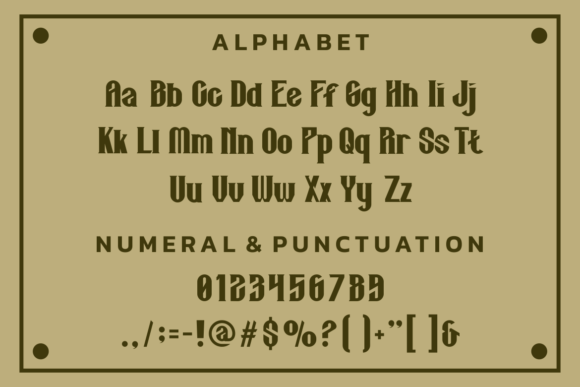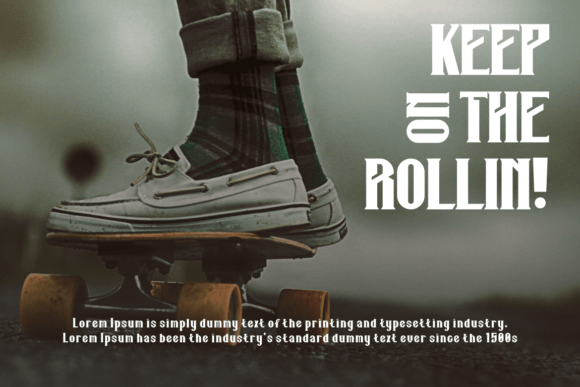
Introducing Deanic Rush Font: Elevate Your Designs with a Touch of Vintage Elegance
Are you a designer or crafter looking to add a dash of nostalgia to your work? Look no further than the Deanic Rush Font, a stylish vintage-style serif font that’s sure to bring a touch of retro charm to any design idea you can think of. In this article, we’ll dive into the world of Deanic Rush, exploring its features, benefits, and uses, as well as provide tips on how to make the most of this beautiful font.
What is Deanic Rush Font?
Deanic Rush is a carefully crafted serif font that embodies the essence of vintage typography. Its classic design, reminiscent of the golden age of print, makes it an ideal choice for designers and crafters seeking to create timeless and sophisticated designs. With its elegant lines, refined curves, and precise letter spacing, Deanic Rush is the perfect addition to any design project that requires a touch of nostalgia and glamour.
Key Features of Deanic Rush Font
- Vintage-style serif design: Deanic Rush boasts a classic serif design that’s reminiscent of traditional print fonts.
- Elegant lines and refined curves: The font features smooth lines and curves that add to its sophisticated and elegant feel.
- Precise letter spacing: The font’s letter spacing is carefully adjusted to ensure optimal readability and aesthetics.
- Retro charm: Deanic Rush is designed to evoke a sense of nostalgia and vintage charm, making it perfect for designs that require a touch of classic elegance.
Benefits of Using Deanic Rush Font
So, why choose Deanic Rush Font for your design projects? Here are just a few benefits of using this beautiful font:
- Adds a touch of sophistication: Deanic Rush’s classic design and elegant lines make it an excellent choice for designs that require a touch of sophistication and glamour.
- Evokes nostalgia: The font’s vintage-style design is sure to evoke feelings of nostalgia and warmth, making it perfect for designs that aim to create an emotional connection with the audience.
- Versatile: Deanic Rush can be used for a wide range of design projects, from branding and advertising to packaging and digital media.
- Easy to read: The font’s precise letter spacing and elegant design make it easy to read, even at small sizes.
Uses of Deanic Rush Font
Deanic Rush Font is a versatile font that can be used for a wide range of design projects, including:
- Branding and advertising: Use Deanic Rush to create eye-catching logos, ads, and marketing materials that exude sophistication and elegance.
- Packaging design: Add a touch of vintage charm to your product packaging with Deanic Rush, perfect for food, beverage, and lifestyle brands.
- Digital media: Use Deanic Rush in digital media, such as social media graphics, blog posts, and email newsletters, to add a touch of sophistication and glamour.
- Crafting and scrapbooking: Deanic Rush is also perfect for crafters and scrapbookers looking to add a touch of vintage elegance to their projects.
Tips for Using Deanic Rush Font
Here are a few tips to help you make the most of Deanic Rush Font:
- Pair with modern fonts: Combine Deanic Rush with modern fonts to create a striking contrast that adds visual interest to your design.
- Experiment with colors: Try pairing Deanic Rush with bold, bright colors to create a vintage-inspired look that’s sure to turn heads.
- Use for headlines and titles: Deanic Rush is perfect for headlines and titles, where its elegant design and vintage charm can really shine.
In conclusion, Deanic Rush Font is a stylish vintage-style serif font that’s perfect for designers and crafters looking to add a touch of retro elegance to their work. With its elegant lines, refined curves, and precise letter spacing, Deanic Rush is sure to bring a touch of sophistication and glamour to any design project. So why not give it a try and see how it can elevate your designs?